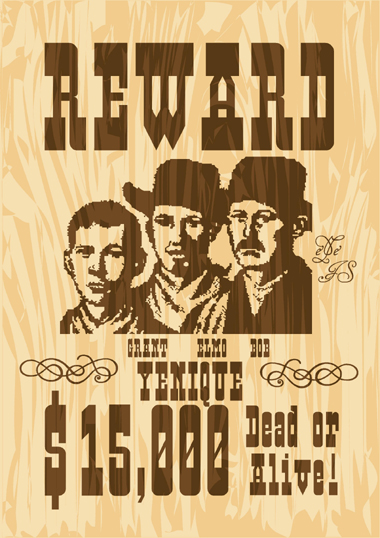
My western.
and very good it is too.
Very nice western font. Impressive. Check the ® for spacing. 10/10
Yehaaaa!!!! Now that's a goodlookin' Western ... Yes Sireeeeh! 10/10
Personally, when I decided to create a western style font so it seemed to me something a bit crazy, this is not a kind of font that is often used much in today's pictures and other graphic proposals. But to work, it was a good task to study, manage and try to solve the most important visual aspects of style and use of other fonts that are not so common. I think the result is very nice, but there are still some problems in some glyphs, such as A,!, Ñ and others that I am sure you will discover. Anyway, I think this effort has produced a fairly good result. What do you think about this? You know about this more than me ...
I see your problem with the Ñ and other glyphs. You can solve it easily by using the 2:2 filter setting (Advanced>View>Filters, set both horizontal and vertical brick size to 2.00). This magnifies the bricks, but the grid remains the same size. You can position bricks in between. It won't take too long to upscale this small grid font.
Have you considered the use of half slabs to preserve the gap all the way up or down. You already have it in the N,n. It's not a question of good or bad design, but rather what do you prefer.
The vertical part of the ¶ (pilcrow, paragraph) should go down to the descender. It's not necessarily serifed at the bottom in a serif font.
a different and modern western font. this is very good work. you have injected much variety and style into the Fontstruct community. your work and has been innovative and engaging. and you have some very solid technical skill. congrats and keep up the good work.